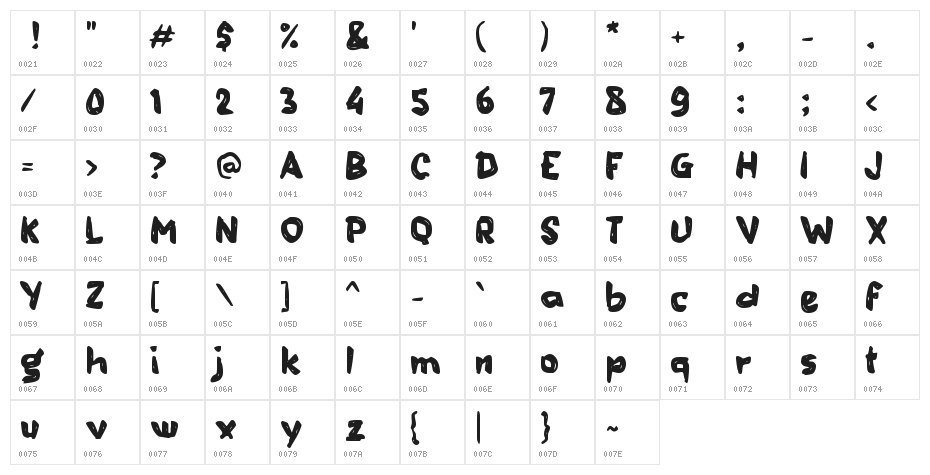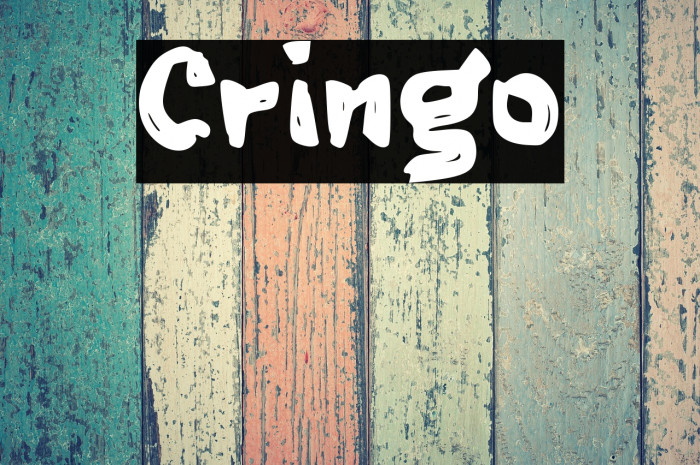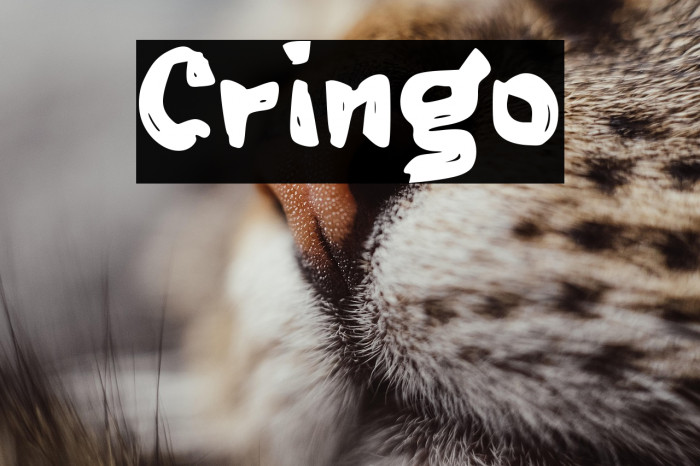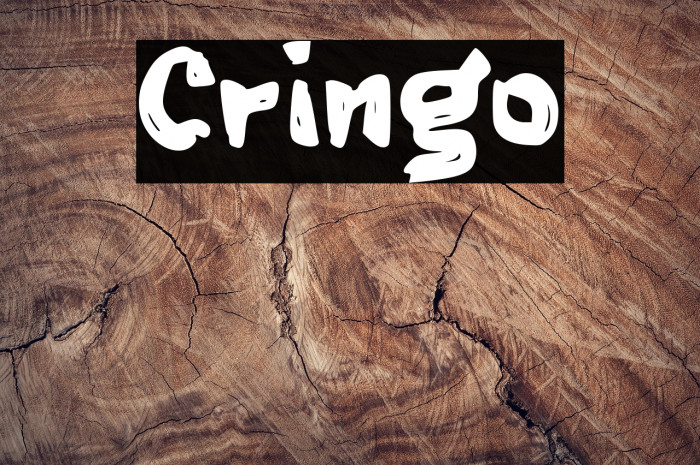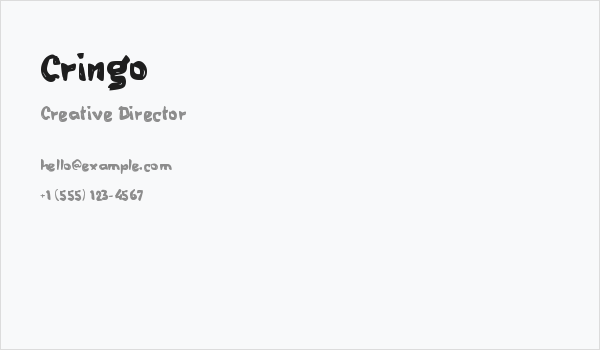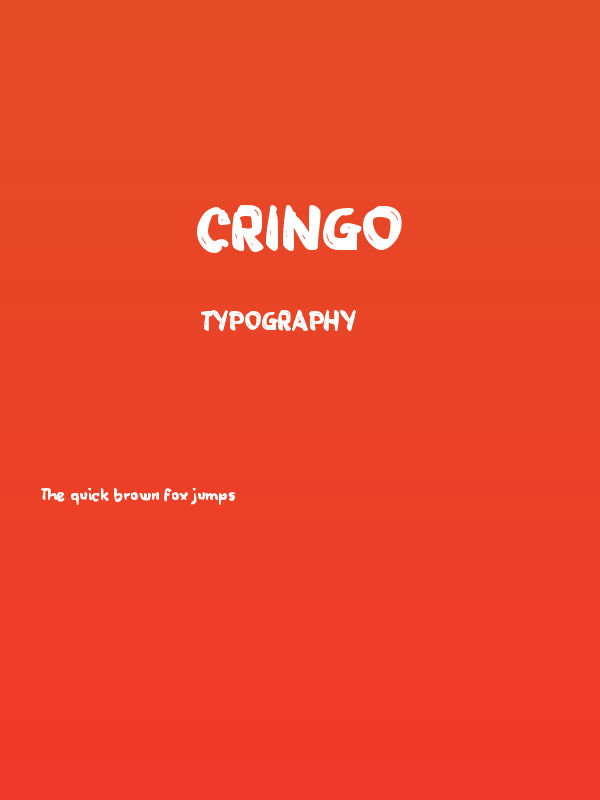
Cringo Font
Cringo Description
This font features a bold, playful style with a hand-drawn appearance. The letters are irregular and slightly tilted, giving it a casual and informal look. The strokes are thick and uneven, adding to the whimsical character of the typeface. The uppercase and lowercase letters maintain a consistent style, with rounded edges and a slightly exaggerated form. Numbers and special characters follow the same playful design, making the font versatile for various creative applications. Its unique style makes it stand out, perfect for projects that require a fun and engaging visual element.
| Use Case | Logos, Headlines, Posters |
| Proposed Projects | Ideal for children's books, comic strips, playful branding, and creative posters. |